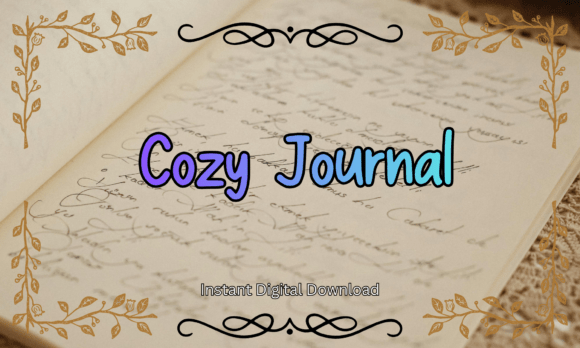
Wrap Yourself in Warmth with the Cozy Journal Font
There’s something special about curling up with a warm cup of coffee and a blank notebook page, the soft glow of morning light spilling across the page as you let your thoughts flow onto paper. It’s moments like these that inspire creativity and invite us to slow down and savor the beauty of the everyday.
That’s exactly the feeling you’ll want to evoke with your designs when you use the Cozy Journal Font. This soft, handwritten-style font is designed to bring a sense of warmth and comfort to your digital planners, journaling pages, and cozy lifestyle branding. Whether you’re a designer, scrapbooker, or simply someone who loves to create, the Cozy Journal Font is a valuable addition to your toolkit.
With its smooth, rounded letters and friendly, casual flow, this font is perfect for bringing a relaxed and inviting feel to your projects. So why not wrap yourself in the warmth of the Cozy Journal Font and let your creativity shine?
Cozy Journal Font Key Features
- Font Family: A unique, handwritten font family designed to evoke a sense of warmth and comfort, perfect for journaling, scrapbooking, and other creative pursuits.
- Unique Characteristics: The Cozy Journal Font features a range of unique characteristics, including swashes, flourishes, and ligatures, which add a touch of personality to journal entries and other written content.
Cozy Journal Font Review
I recently had the chance to work with the Cozy Journal Font, and I must say it’s a charming addition to any design project. ✨ Here are a few things that I think it does well:
- It’s perfect for creating a warm and inviting atmosphere in your designs. The gentle curves and rounded edges make it feel like a hug in a font.
- It’s highly legible, even at smaller font sizes, making it a great choice for body text.
- The font is well-suited for a variety of industries, including publishing, education, and lifestyle brands.
- The font may not be the best choice for more modern or edgy designs, as it can feel a bit too soft and playful.
- It may not be suitable for very long blocks of text, as the font’s curves can start to feel overwhelming.
- The font family is relatively small, which may limit its versatility.
Overall, I think the Cozy Journal Font is a solid choice for designers looking to create warm and inviting designs. While it may have some limitations, it’s a great addition to any design project that requires a touch of whimsy and personality.
Tips for Getting the Most Out of Cozy Journal Font
For the best results, pair Cozy Journal Font with complementary fonts and colors. Experiment with different font sizes and styles to create a visually appealing design. Use Cozy Journal Font for headings and subheadings, and a simpler font for body text.
Cozy Journal Font is perfect for creating a warm and inviting atmosphere in designs such as:
– Blog posts and articles
– Journaling and scrapbooking